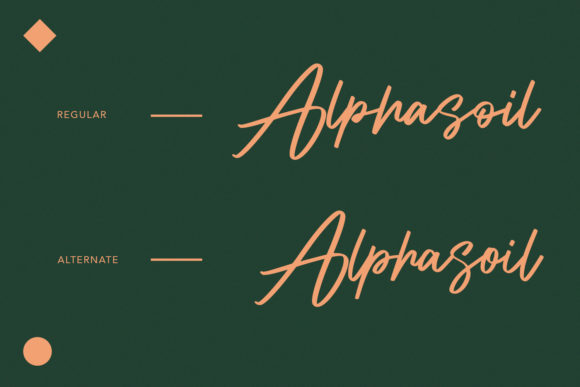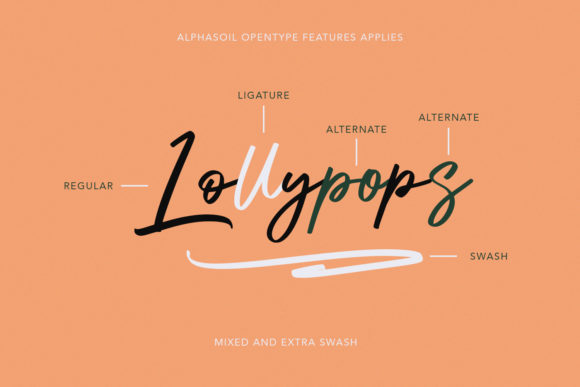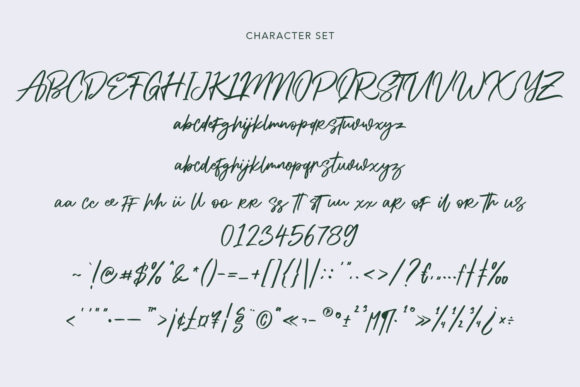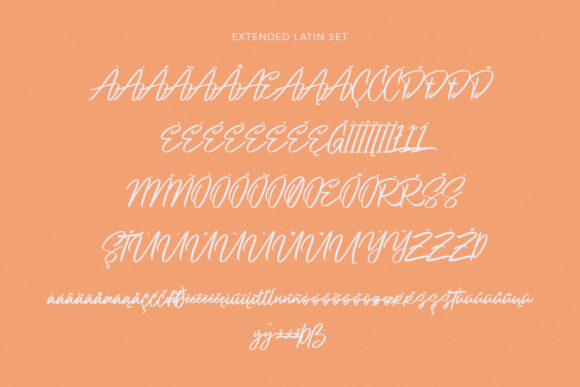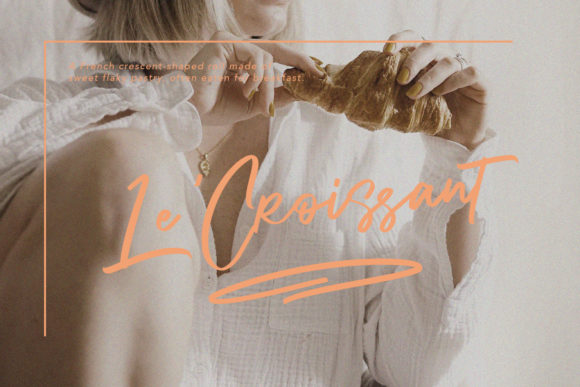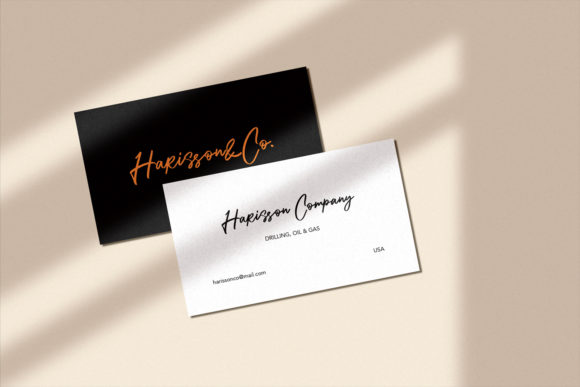
Introducing Alphasoil Font: Elevate Your Designs with Luxury and Elegance
Are you a designer or crafter looking for a font that can add a touch of luxury and sophistication to your projects? Look no further than Alphasoil Font. This beautiful light handwritten font is designed to make a stunning impact, and its unique feel is sure to set your designs apart from the rest.
The Unique Characteristics of Alphasoil Font
Alphasoil Font boasts a distinctive, elegant style that exudes refinement and poise. Its light, airy feel makes it perfect for designs that require a subtle yet sophisticated touch. Whether you’re working on a branding project, a website, or a craft project, Alphasoil Font is sure to add a level of luxury and sophistication that will elevate your design to the next level.
Why Choose Alphasoil Font?
So, what sets Alphasoil Font apart from other fonts on the market? Here are just a few reasons why designers and crafters are falling in love with this beautiful font:
- Unique feel: Alphasoil Font has a one-of-a-kind style that’s sure to make your designs stand out.
- Luxury look: The font’s light, elegant feel gives it a luxurious appearance that’s perfect for high-end designs.
- Versatility: Alphasoil Font can be used for a wide range of projects, from branding and advertising to crafting and DIY projects.
- Ease of use: This font is incredibly easy to use, making it perfect for designers and crafters of all skill levels.
How to Use Alphasoil Font in Your Designs
Alphasoil Font is incredibly versatile, making it perfect for a wide range of design projects. Here are a few ideas to get you started:
- Branding and logos: Use Alphasoil Font to create a luxurious and sophisticated brand identity.
- Website design: Add a touch of elegance to your website with Alphasoil Font.
- Advertising and marketing: Use Alphasoil Font to create eye-catching ads and marketing materials.
- Crafting and DIY projects: Add a personal touch to your crafting and DIY projects with Alphasoil Font.
Tips for Getting the Most Out of Alphasoil Font
To get the most out of Alphasoil Font, here are a few tips to keep in mind:
- Experiment with different colors: Alphasoil Font looks great in a variety of colors, so don’t be afraid to experiment and find the perfect hue for your design.
- Play with font sizes: Alphasoil Font can be used at a variety of font sizes, from large and bold to small and subtle.
- Pair it with other fonts: Alphasoil Font pairs well with a variety of other fonts, so feel free to get creative and experiment with different font combinations.
Alphasoil Font is a beautiful, elegant font that’s sure to add a touch of luxury and sophistication to any design project. With its unique feel, versatility, and ease of use, it’s the perfect choice for designers and crafters looking to elevate their designs to the next level. So why wait? Add Alphasoil Font to your design toolkit today and see the difference it can make!